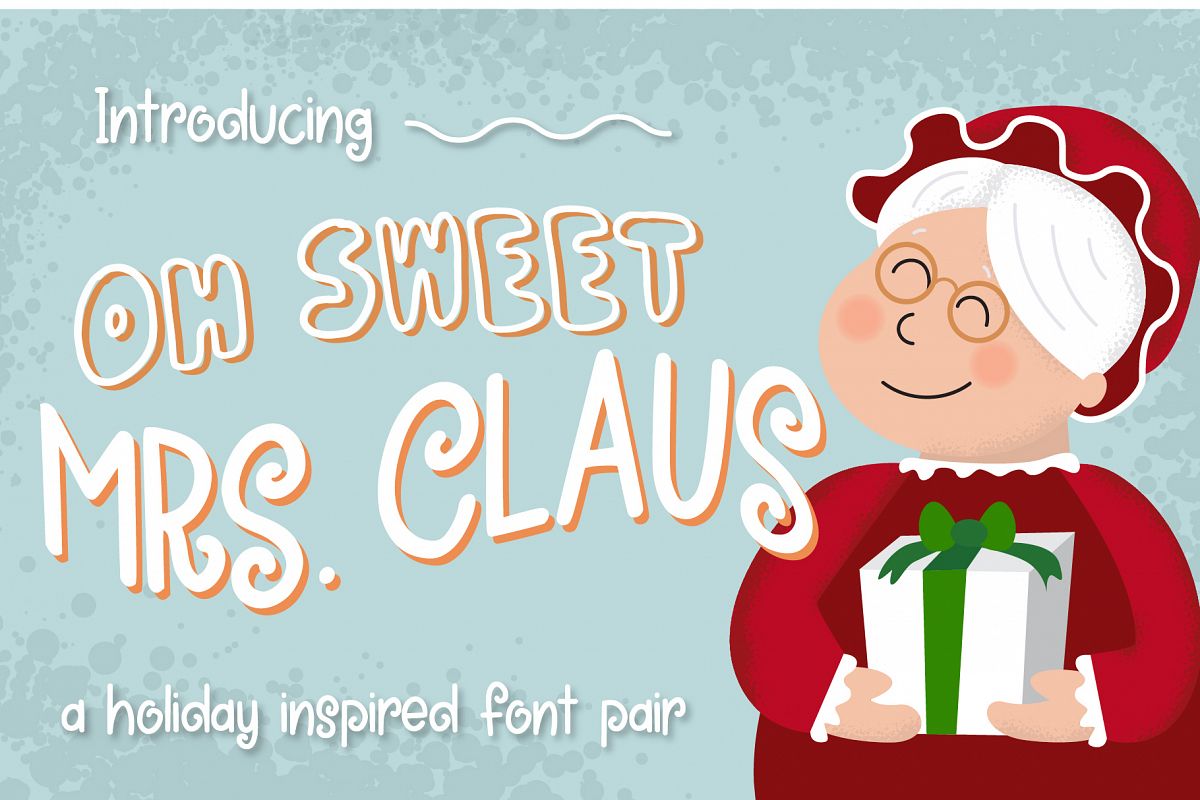
Oh Sweet Mrs. Claus Font Duo
Introducing, Oh Sweet Mrs. Claus Font Duo. A fun san serif font that was inspired by the Holiday and Christmas soul of Mrs. Santa Claus.